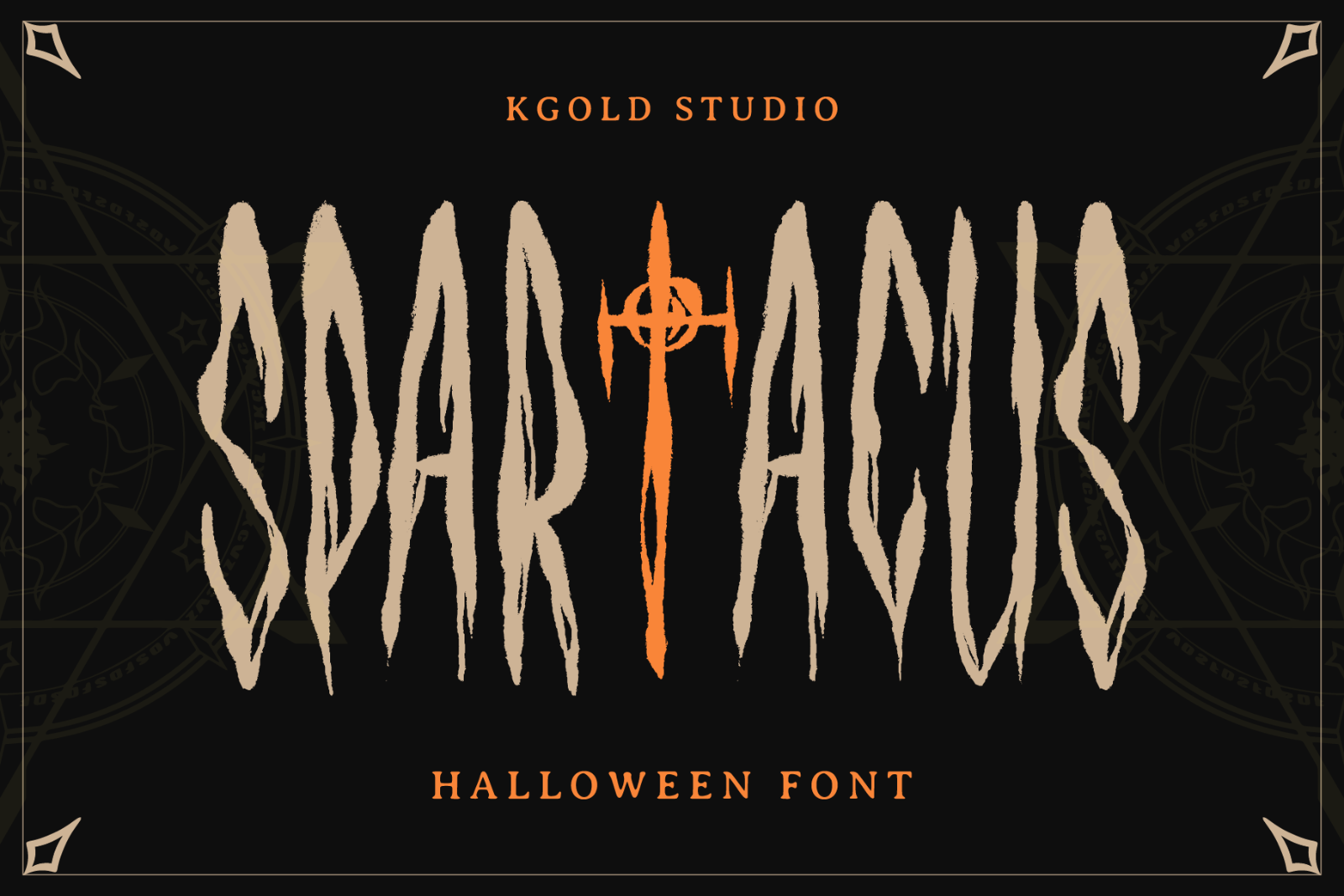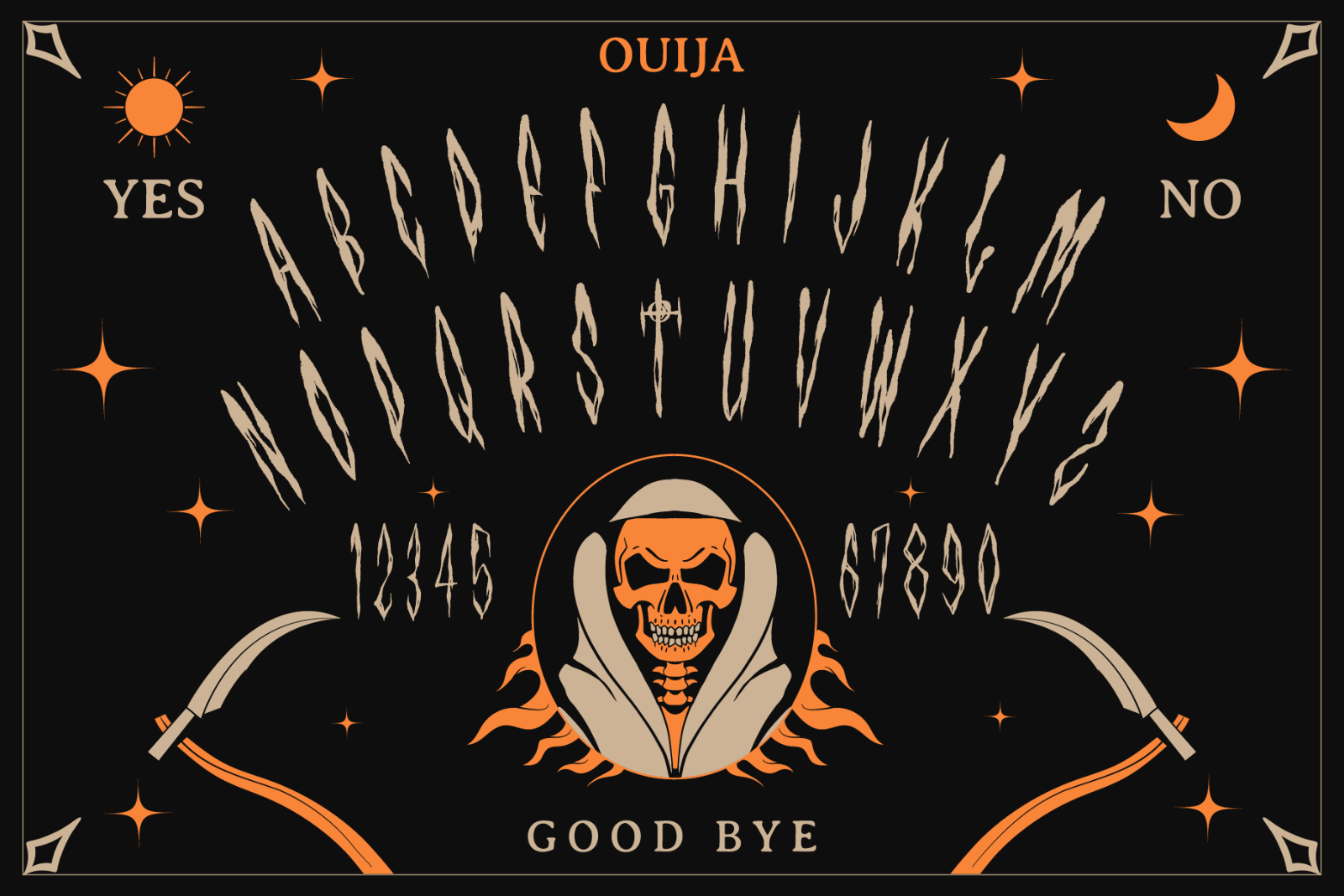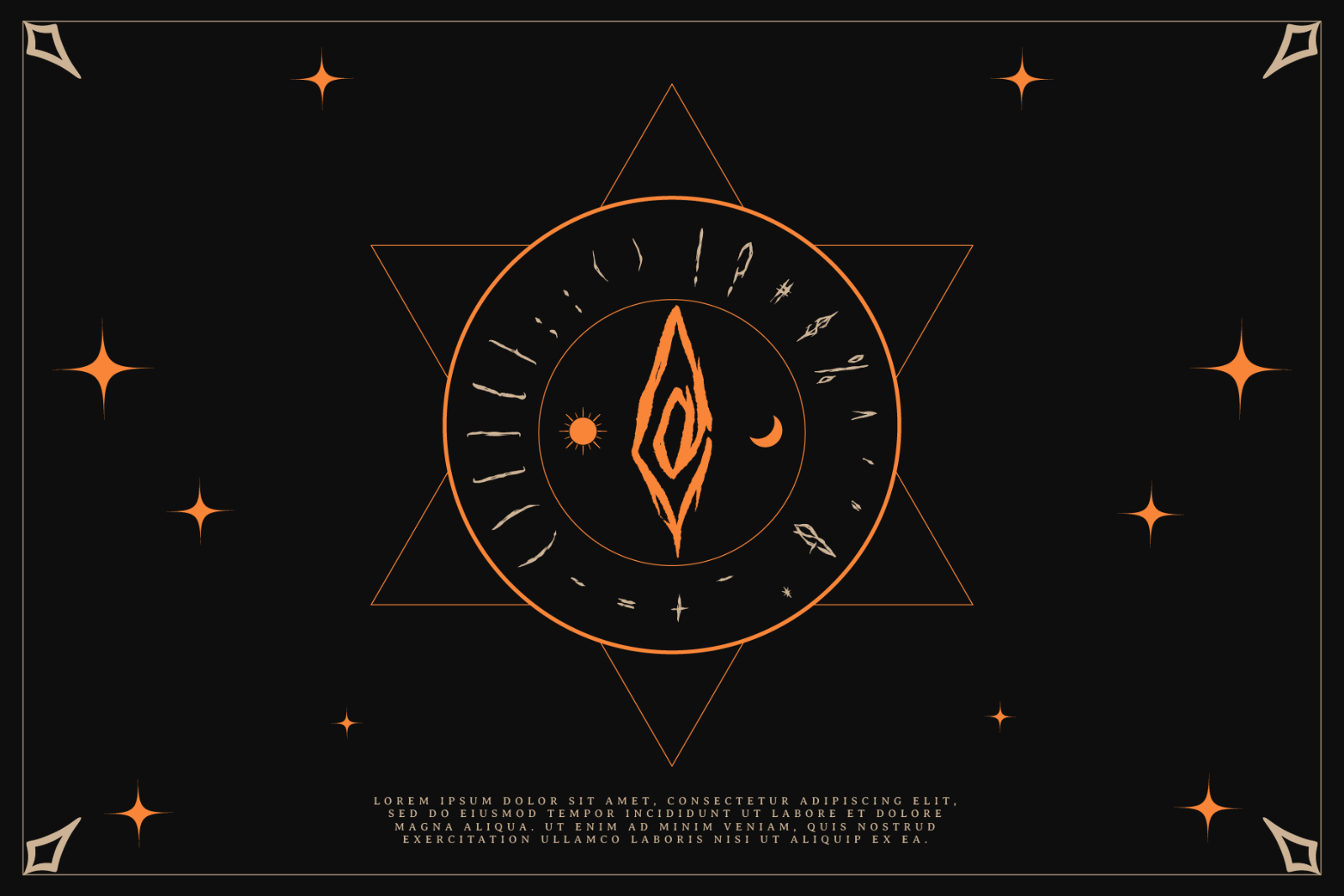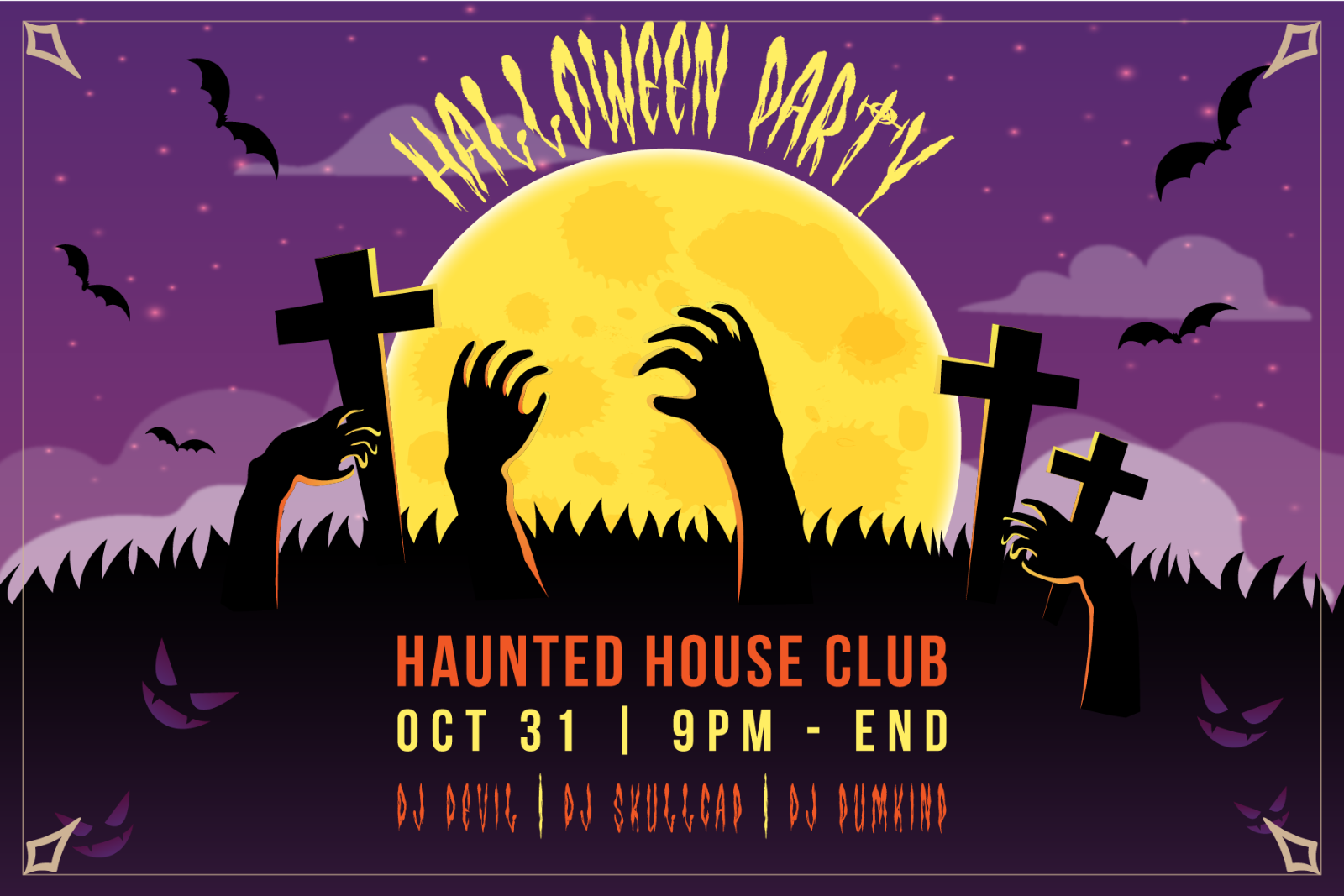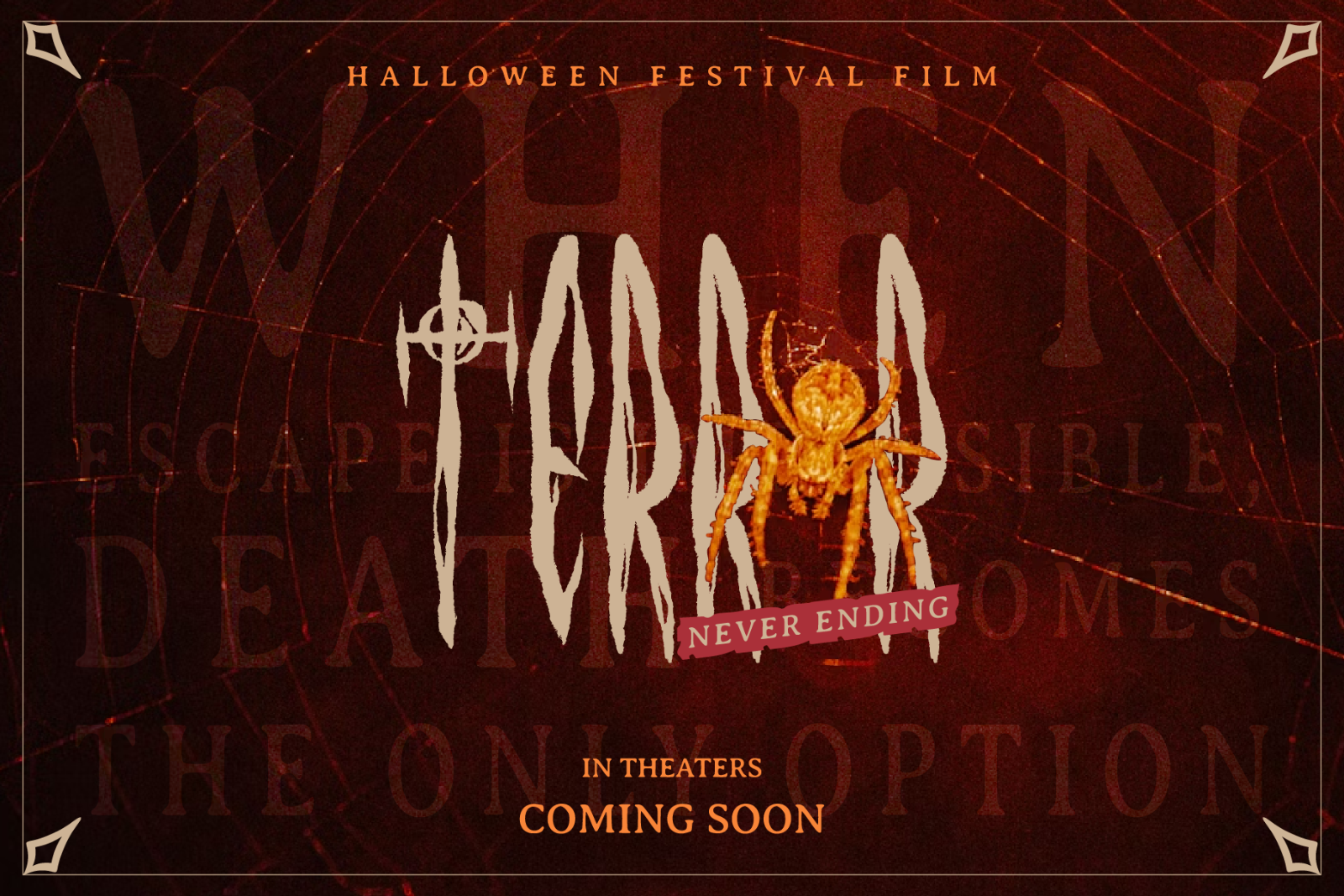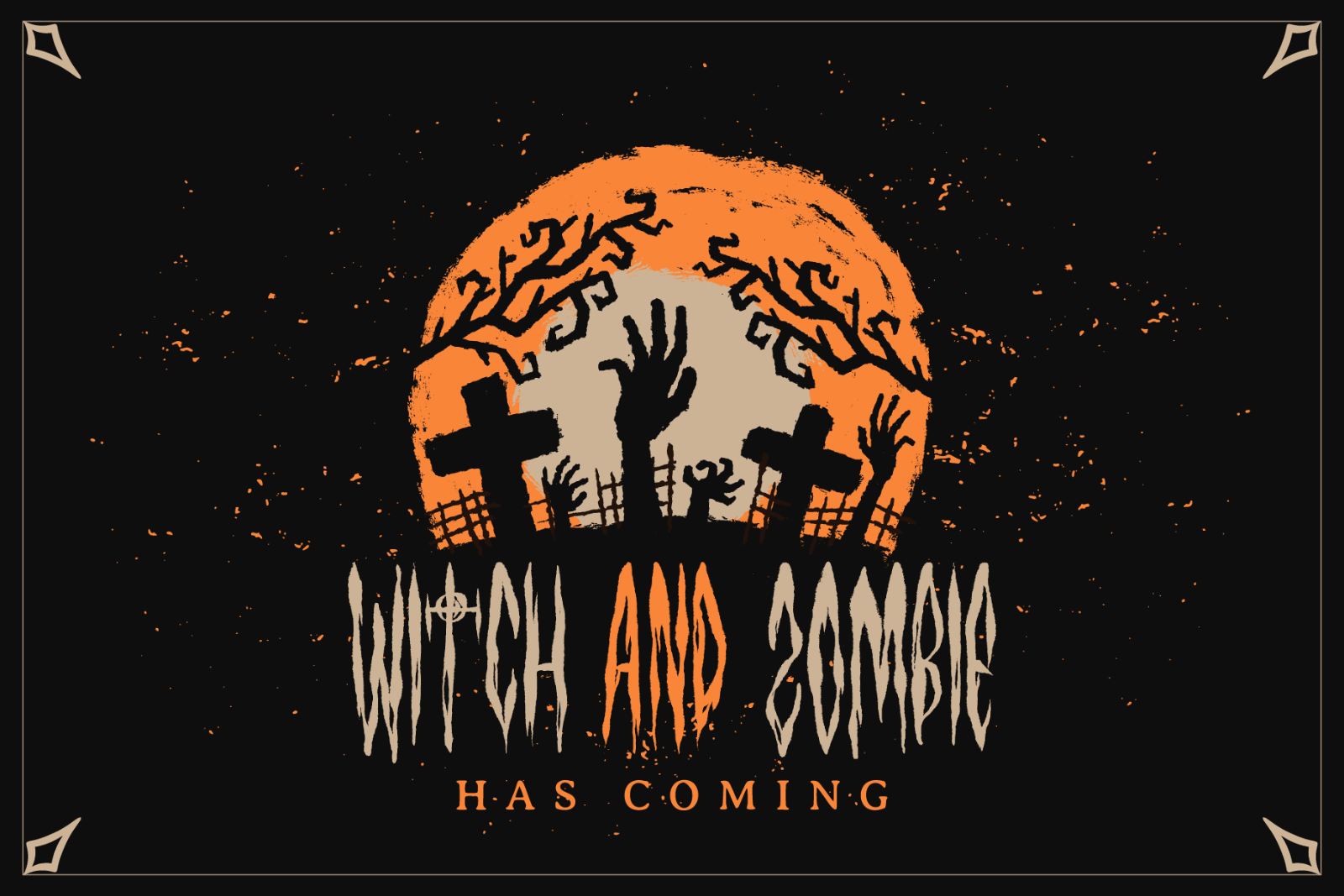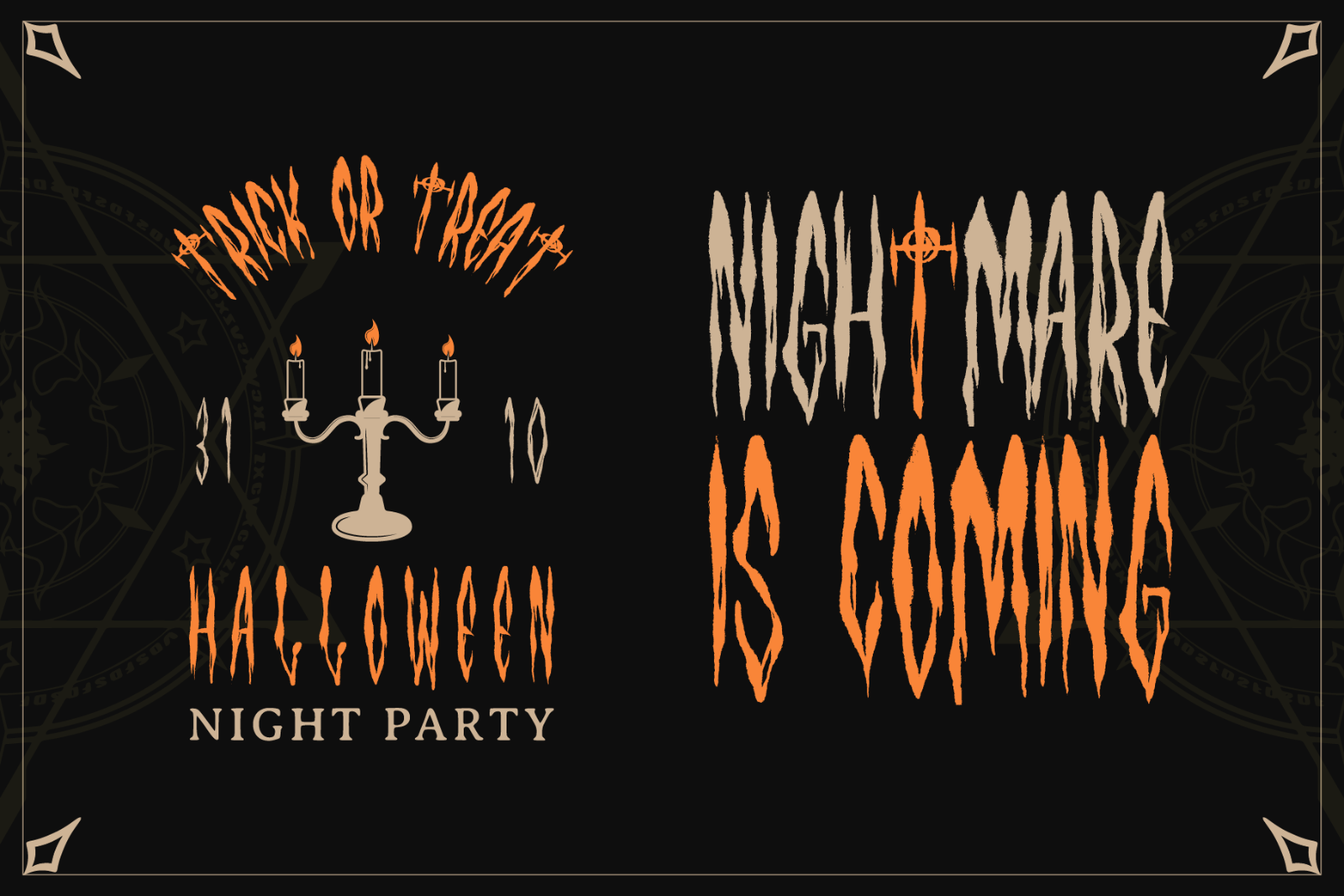
Step into the shadows with Spartacus, a hand-drawn horror typeface that drips with eerie character. Its tall, jagged letterforms and ink-textured edges evoke the unsettling charm of vintage horror posters and haunted house signage. Perfect for Halloween invitations, thriller movie titles, gothic branding, dark-themed book covers, and chilling event graphics.
Every letter is crafted to create tension and atmosphere, making Spartacus ideal for projects that demand a dramatic and sinister aesthetic. Whether for print or digital design, this typeface will leave a lasting impression.
• Uppercase A–Z characters
• Organic, hand-drawn style with rough ink texture
• Perfect for horror, thriller, gothic, and Halloween projects